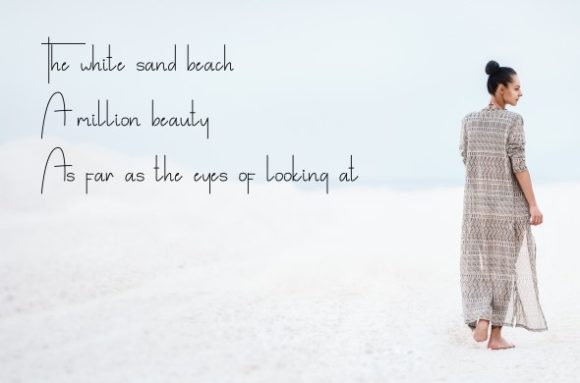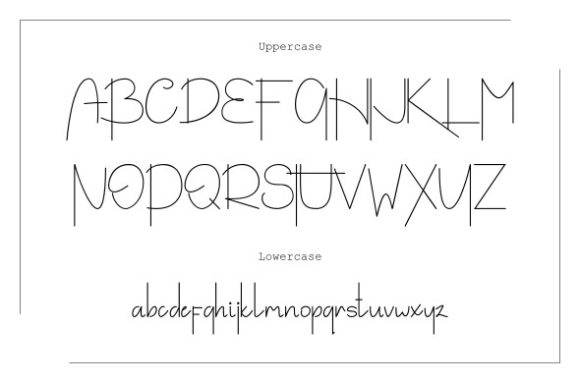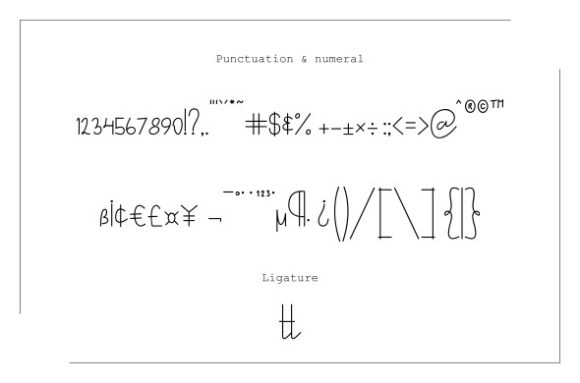
Introduction to Megumareta Font
As a designer, have you ever found yourself staring at a blank page, struggling to bring your creative vision to life? You’ve got a concept, a message, and a style in mind, but the right font seems to be the missing piece of the puzzle. That’s where the Megumareta Font comes in – a beautiful, high-quality design resource that can elevate your creative project to the next level.
With its stunning curves and firm lines, the Megumareta Font is perfect for designers who want to add a touch of sophistication and elegance to their work. Whether you’re working on a free download or a paid project, this font is sure to make a lasting impression. Plus, its transparent background makes it easy to layer and customize, giving you endless possibilities for creative expression.
Megumareta Font Key Features
- Features a unique and elegant font style suitable for various design applications
Honest Review: Megumareta Font
I recently stumbled upon the Megumareta Font while searching for a design resource for a creative project. I was immediately drawn to its high-quality design and versatility. The font has a beautiful, elegant feel that would be perfect for a wide range of projects, from wedding invitations to branding materials.
What works well: ✨ The Megumareta Font is incredibly easy to use and install, even for those without extensive design experience. The transparent background is a great feature, allowing for seamless integration into any design. The font also comes in a range of weights and styles, giving designers the flexibility to customize their project to their liking.
Overall, I’m impressed with the Megumareta Font and would definitely recommend it to designers looking for a high-quality, creative font. While it may have some limitations, its benefits far outweigh its drawbacks.
Getting the Most Out of Megumareta Font
Use the Megumareta Font with a transparent background to create visually appealing designs. Experiment with different font sizes, colors, and styles to enhance the visual impact of your project.
The Megumareta Font is suitable for various creative projects, including logos, business cards, and infographics. Its high-quality design makes it an excellent choice for presentations, reports, and academic papers.